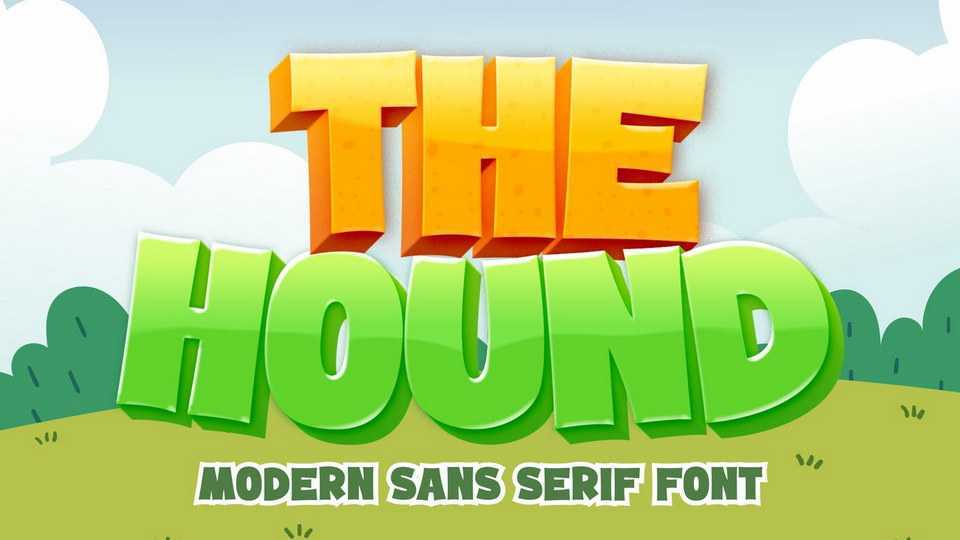
Download The Hound font, a modern cartoon typeface. The Hound is a playful font that, although carry the seriousness and formality of a sans-serif font, still do reflect the fun, cheerfulness, and happiness of a children world.